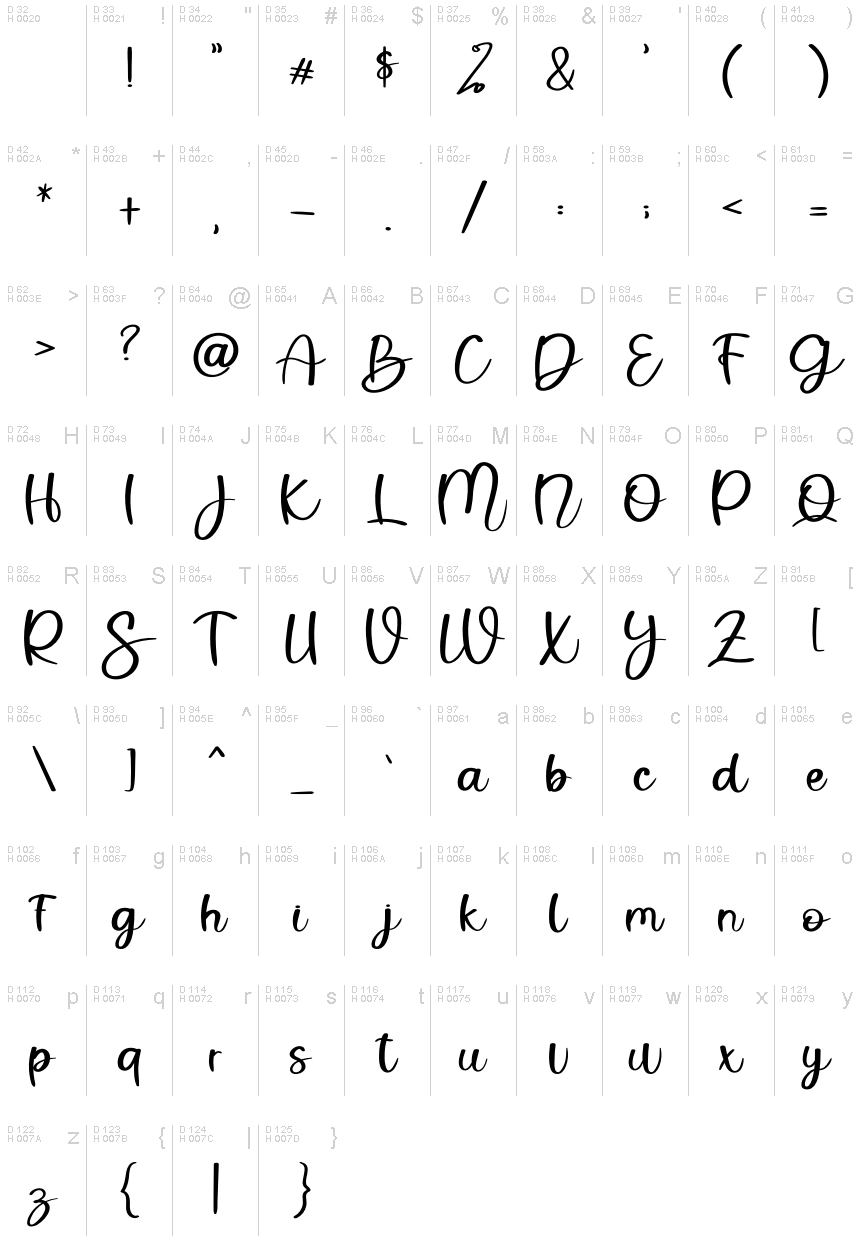
Dream Valentine
Dream Valentine, designed by Etik Fatimah, is a font that captures the essence of personal touch with its handwritten style. With fluidity that resembles elegant cursive writing, each character in this font dances with an effortless grace, making it feel intimate and endearing. The sweeping curves and natural variations in stroke thickness give it a dynamic rhythm that mimics the nuances of pen on paper.
Ideal for projects that require a touch of romance or authenticity, Dream Valentine shines in contexts like wedding invitations, greeting cards, and branding for boutique businesses. Its charming aesthetics can also add a whimsical flair to book covers or personalized gifts, ensuring messages are delivered with heartfelt sincerity.